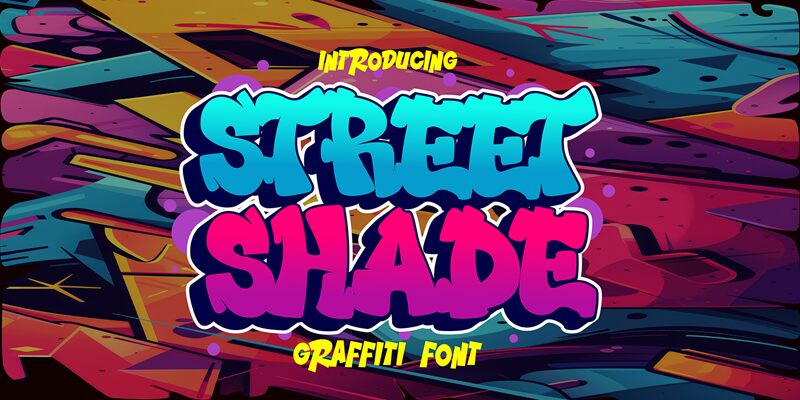
Street Shade font family designed by Cikareotype Studio captures the unique plethora of expressions of street culture. This free font family includes 2 styles that each bring in their own way the magic of graffiti art into every letter. It has an informal style and contemporary or even futuristic look. The vibrant urban vibe and energetic contemporary influences make it an authentic handwriting addition to any project.
If you are looking to make funky and colorful headlines, your search can now end. Street Shade can also be used in branding collaterals, packaging designs, magazines, posters, covers, social media, and websites.